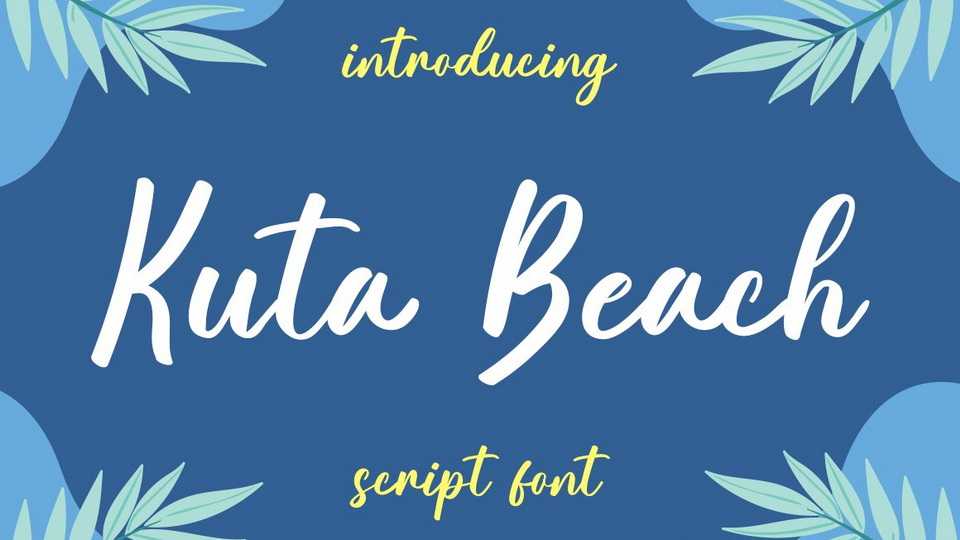
Download Kuta Beach font, a sweet modern calligraphy typeface with a beauty feel. Its distinct and well rounded letters make Kuta Beach font a masterpiece.